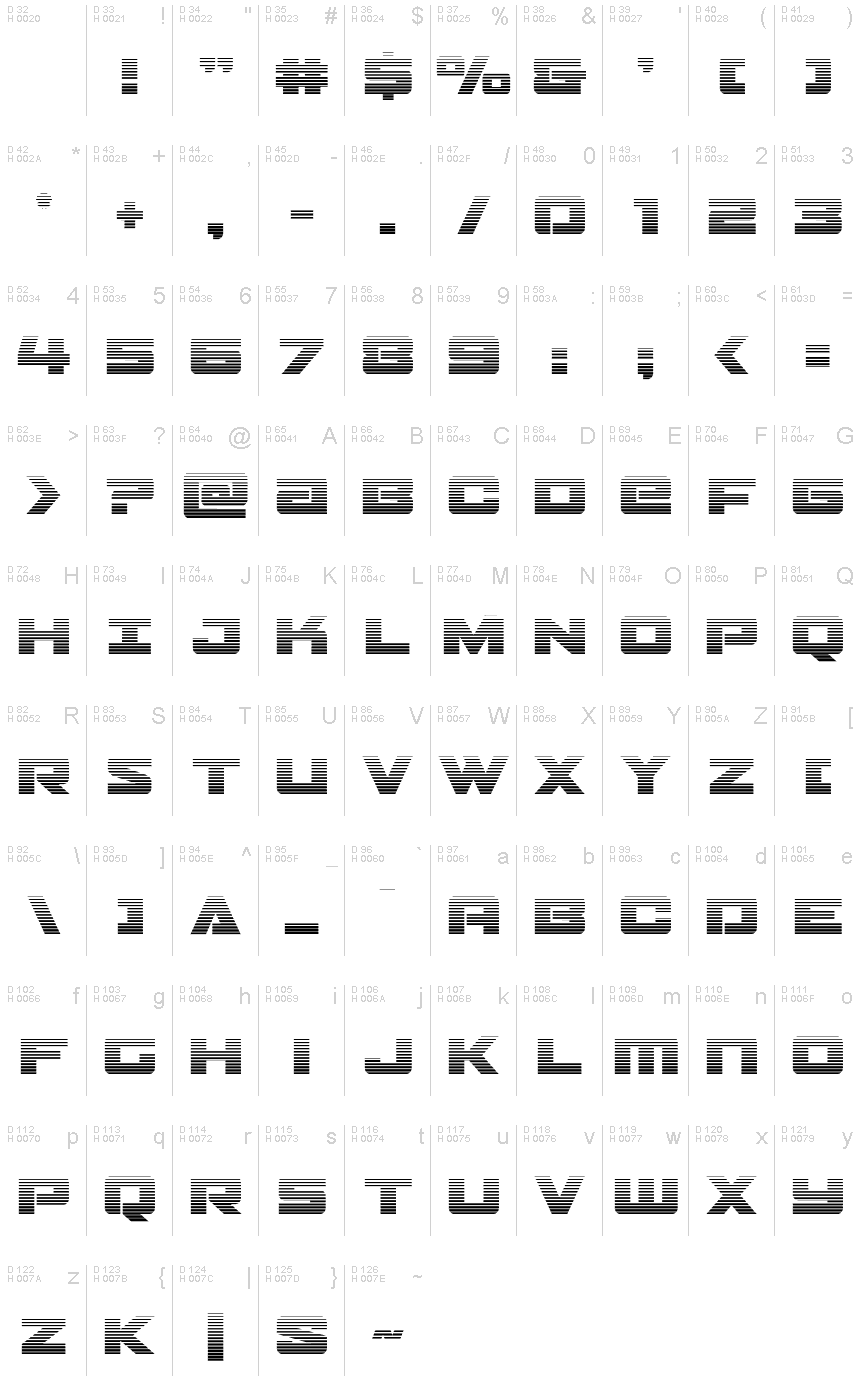
Power Broker Gradient
Power Broker Gradient, from the Power Broker family designed by Iconian Fonts, is a display font that encapsulates the essence of modernity and strength. Its extra-bold weight and extra-expanded width create a commanding presence on the page, while its futuristic style suggests a forward-thinking and innovative spirit. The gradient effect in each character adds depth and dimension, making it visually captivating and ideal for high-impact creative projects.
The aesthetic appeal of Power Broker Gradient lies in its clean lines combined with dynamic shading that mimics metallic sheen, giving it an almost 3D appearance. This font is more than just typography; it's a visual statement that could be perfectly suited for branding projects, event titles, or any design work where you want to leave an indelible impression.
With its distinctive look that balances boldness with sophistication, Power Broker Gradient offers versatility for designers looking to inject a touch of futurism into their creations. Whether on digital platforms or printed materials, this font has the potential to elevate your project's visual narrative to new heights.